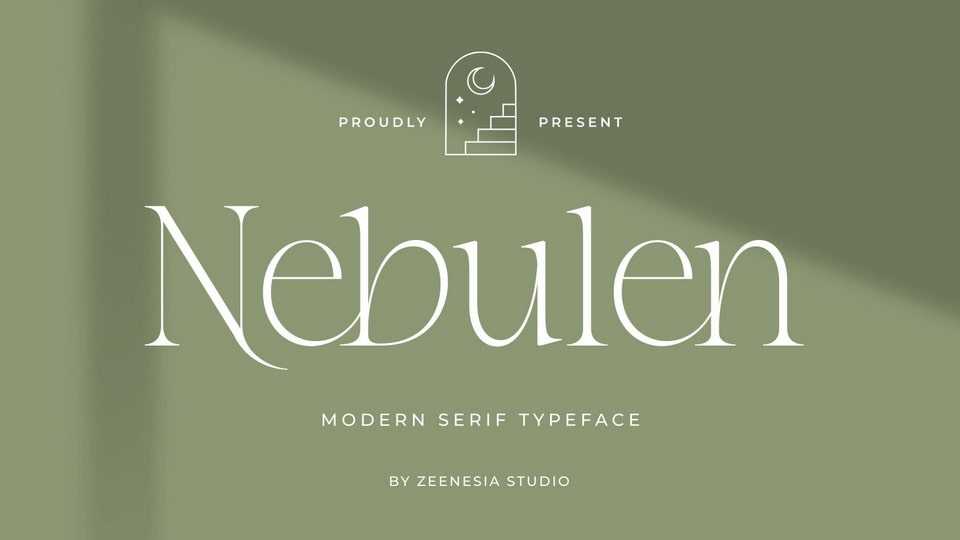
Download Nebulen font, a beautiful and feminine serif typeface created with a romantic and lovely look. Whether you’re using it for crafts, digital design, presentations, or making greeting cards, Nebulen font will become your favorite.
Designer: Zeenesia Studio